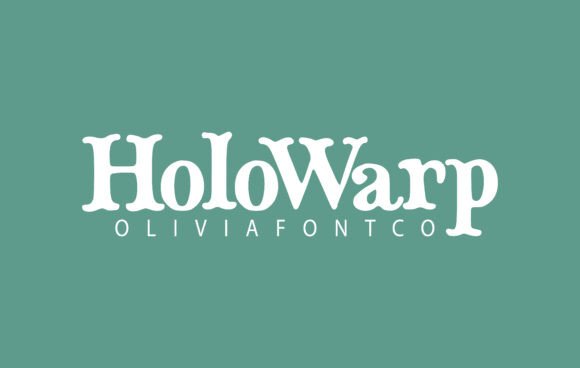
Holowarp Font Review: Authentic Handwritten Charm for Makers
Last Tuesday, while finalizing a new line of soy candle labels for my shop, I found myself staring at a screen full of overly polished scripts that felt completely disconnected from the handmade nature of my product. I needed something that looked like it had been penned by a real person, not generated by an algorithm, which is exactly when I decided to test Holowarp on my packaging mockups. HoloWarp font is an authentic handwritten font with a romantic touch, and seeing it rendered on a textured kraft paper label immediately transformed the design from generic to genuinely artisanal. Although categorized technically as a Slab Serif in some directories due to its grounded structure, this typeface behaves with the fluidity and warmth of a premium display font, making it a standout choice among Fonts for creators who need their branding to feel personal and intentional.
Holowarp for Candle Labels and Artisan Packaging Design
When applying Holowarp to physical product packaging like candle jars, soap boxes, or boutique tags, the font’s unique personality bridges the gap between rustic charm and modern elegance. As a maker, I have tested countless Fonts that claim to be handwritten but fail to maintain legibility at smaller sizes, yet Holowarp retains its character even when scaled down for 2-inch circular labels. The authentic stroke variation mimics the pressure of a real pen, which adds a layer of perceived value to handmade goods; customers can subconsciously sense the care put into the typography, reinforcing the "handmade" promise of the product itself. While it carries the visual weight often associated with a Slab Serif, the romantic flow ensures it doesn't look heavy or industrial on delicate packaging materials like vellum, linen cardstock, or matte vinyl stickers.
For those designing product labels, it is important to note that Holowarp shines brightest as a focal point rather than a utility typeface. I used it specifically for the scent name and brand logo on my test candles, pairing it with a clean, minimal sans serif for the safety warnings and ingredient lists. This contrast is crucial because while HoloWarp font is an authentic handwritten font with a romantic touch, dense technical text requires high readability that decorative fonts cannot always provide. By reserving Holowarp for the emotional hooks of your packaging—the product name, the tagline, or the signature—you leverage its ability to take your creative ideas to the highest level without sacrificing essential information clarity.
Using Holowarp for Wedding Invitations and Romantic Stationery
Stationery designers and invitation creators will find that Holowarp offers a sophisticated alternative to traditional calligraphy scripts when designing wedding suites and romantic event materials. In my recent test run for a spring wedding welcome board mockup, the font provided a relaxed yet elevated aesthetic that felt perfectly suited for modern couples who want romance without stuffiness. Unlike many formal script Fonts that can feel dated or overly ornate, Holowarp strikes a balance that works beautifully across various stationery elements, from save-the-dates and menu cards to table numbers and thank-you notes. Its inherent warmth makes it particularly effective for outdoor weddings, garden parties, and intimate elopements where the vibe is organic and heartfelt.
One practical consideration for Cricut and Silhouette users cutting this font from vinyl or cardstock is the connectivity of the letterforms. Because Holowarp is designed with an authentic handwritten structure, some characters may have delicate connections that require careful weeding or transfer tape application. During my testing on adhesive vinyl for a wooden sign, I found that increasing the letter spacing slightly helped maintain structural integrity during the cut process without losing the font's natural rhythm. For printed invitations, however, you have total freedom to utilize the font’s intricate details and swashes, allowing the ink to capture every nuance of the design. Expertly designed to be a true favorite, this font has the potential to elevate wedding stationery portfolios by offering clients a typeface that feels bespoke and deeply personal.
Holowarp in Digital Printables and Social Media Branding
Beyond physical products, Holowarp translates exceptionally well to digital assets, including printable wall art, planner inserts, and social media graphics for small businesses. When creating a set of motivational quote prints for my Etsy shop, I discovered that the font’s texture prevents digital designs from looking flat or sterile on screens. In the crowded marketplace of digital downloads, typography is often the primary differentiator, and using a distinctive typeface like Holowarp helps listings stand out in search results and thumbnail previews. The romantic touch inherent in the letterforms adds an emotional resonance to affirmations, poetry prints, and journaling prompts that standard serif or sans serif Fonts simply cannot replicate.
For social media branding, consistency is key, and Holowarp serves as an excellent anchor font for Instagram stories, Pinterest pins, and TikTok covers. I tested it on a series of promotional graphics for a seasonal sale, and the font remained crisp and engaging even on mobile displays. However, creators should be mindful of accessibility; always ensure sufficient contrast between the Holowarp text and the background color, especially since handwritten styles can sometimes have varying stroke widths that affect readability against busy images. Pairing this font with a solid, bold sans serif for secondary information creates a hierarchy that guides the viewer’s eye effectively. Whether you are selling editable Canva templates or finished digital art, incorporating Holowarp signals to buyers that your designs are curated with intention and artistic integrity.
Font Pairing and Licensing for Commercial Craft Projects
Maximizing the impact of Holowarp requires thoughtful font pairing and a clear understanding of licensing for commercial handmade and digital ventures. Because HoloWarp font is an authentic handwritten font with a romantic touch, it acts as a strong protagonist in your design system and needs supportive secondary actors to function effectively. My go-to pairing strategy involves combining Holowarp with a geometric sans serif for modern retail branding or a classic serif for more traditional editorial layouts. Avoid pairing it with other highly decorative or script Fonts, as this creates visual competition and reduces overall legibility. The goal is to let Holowarp breathe as the star element while other typefaces handle the functional heavy lifting.